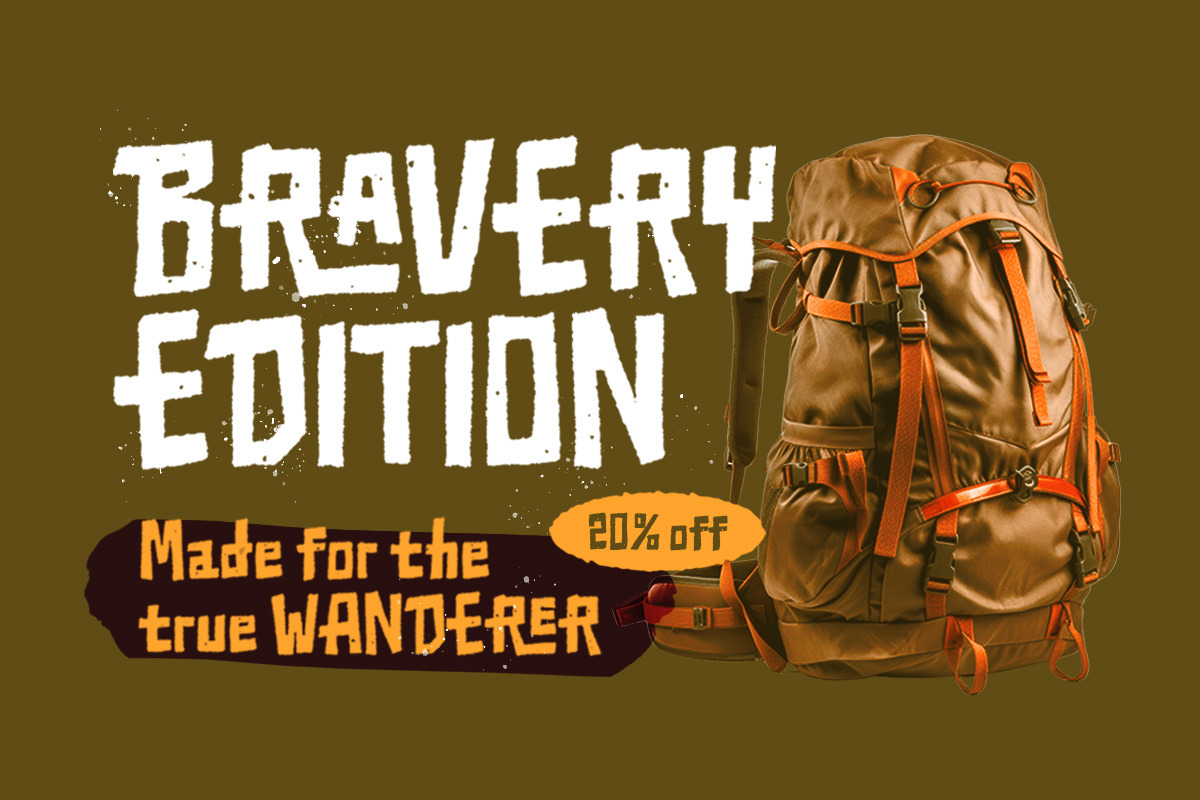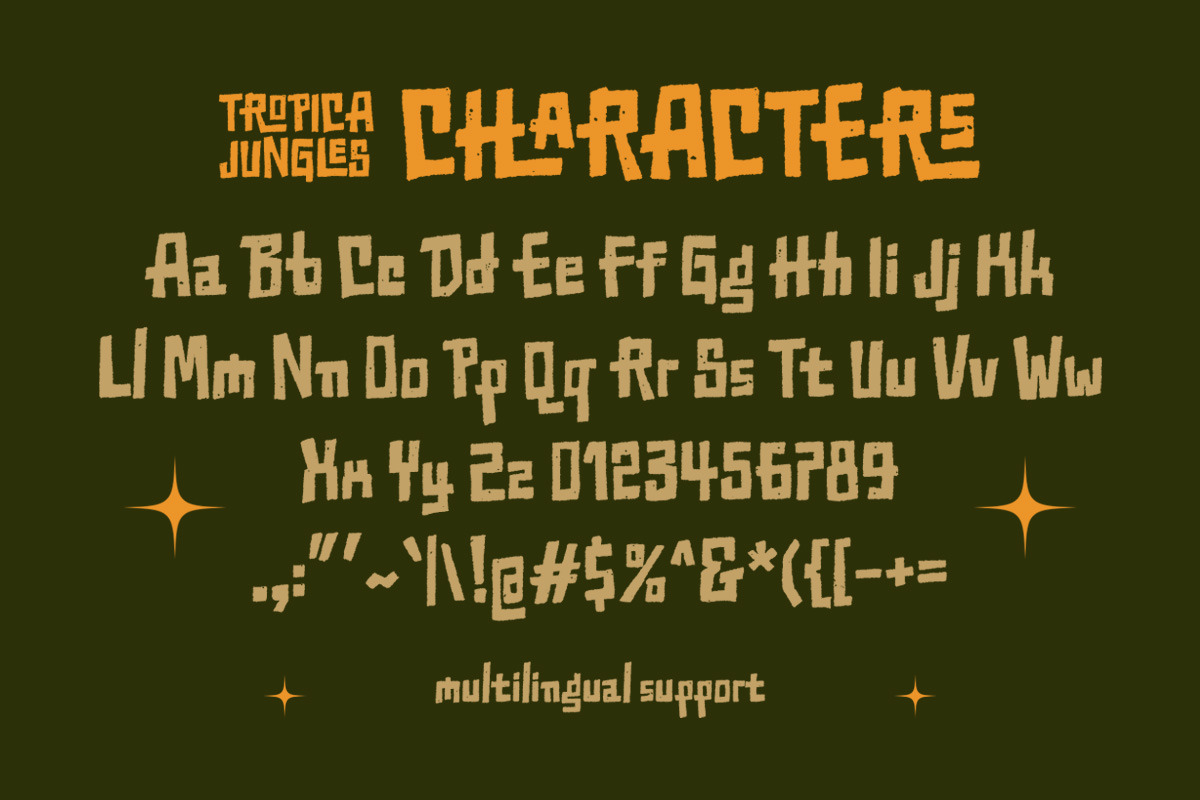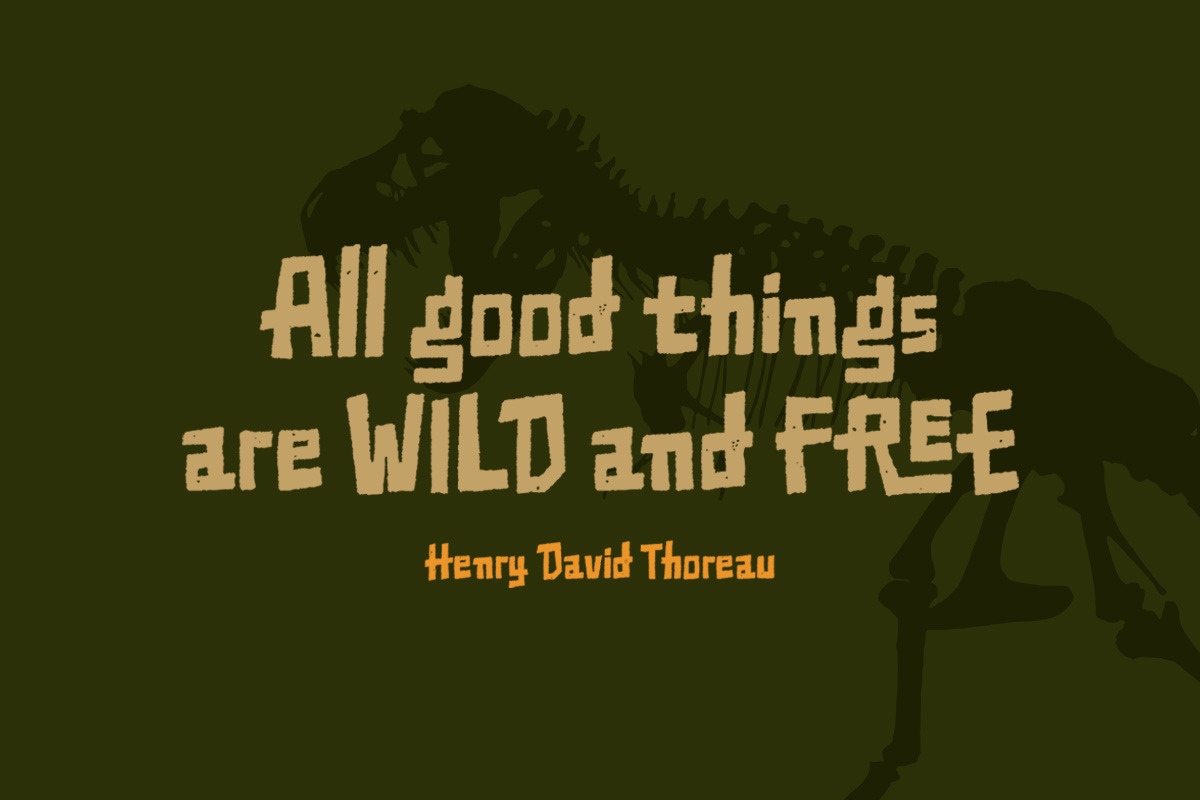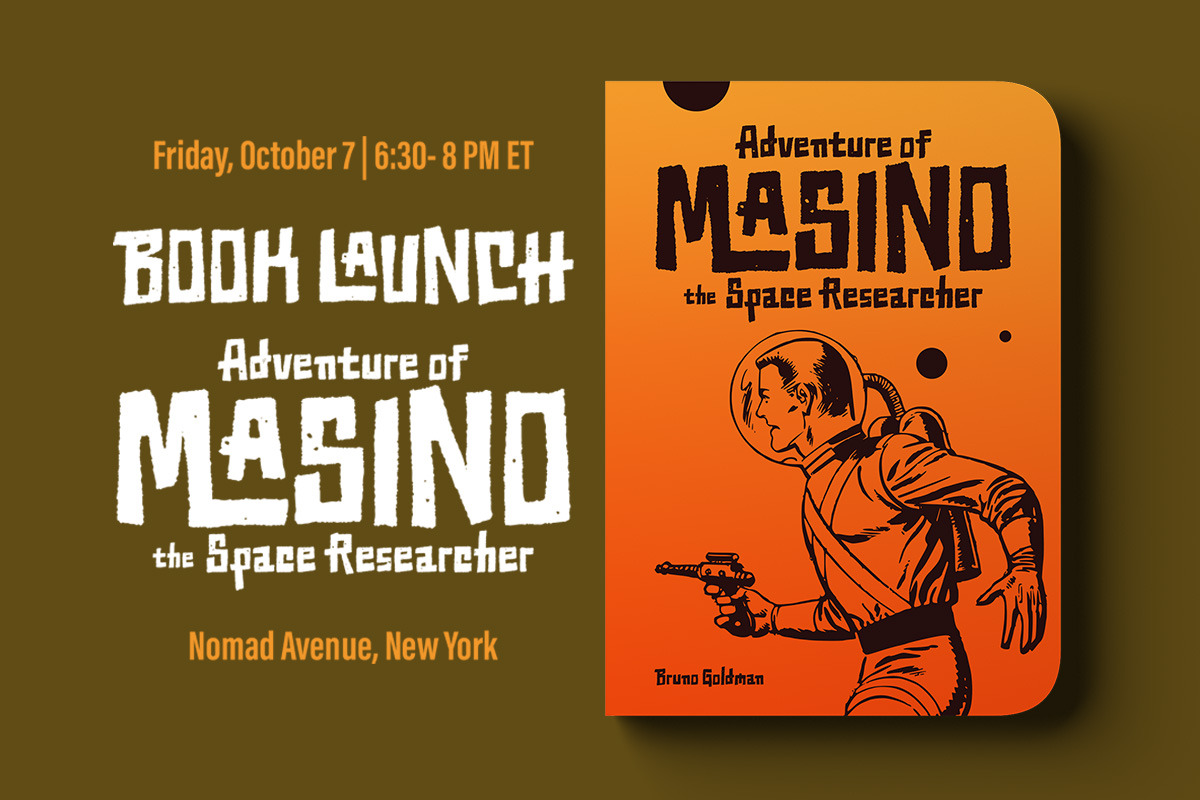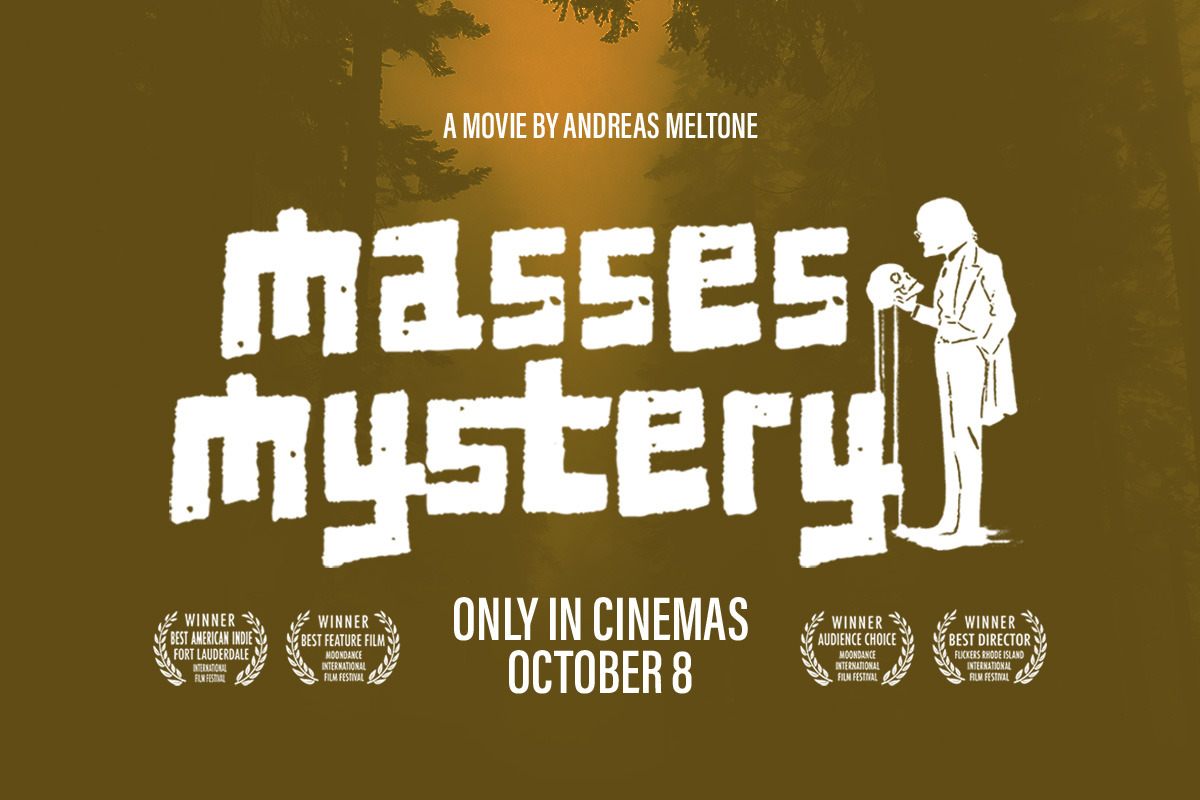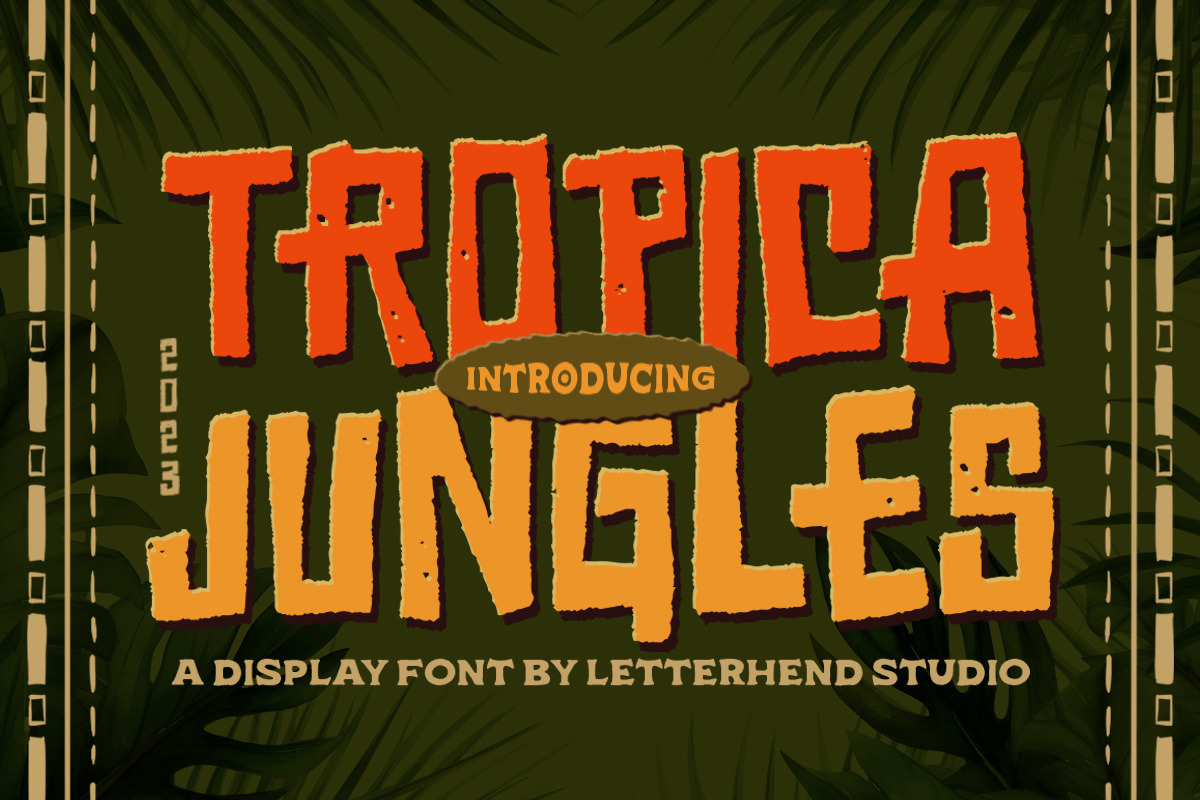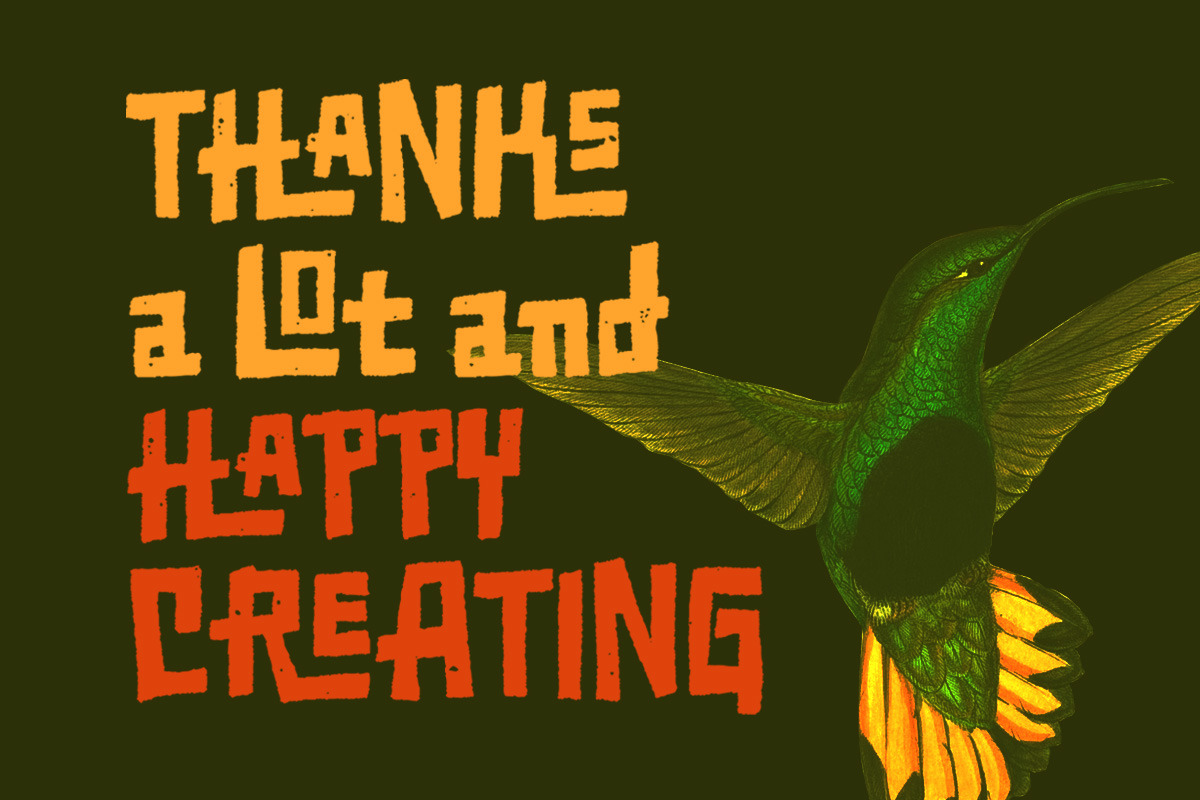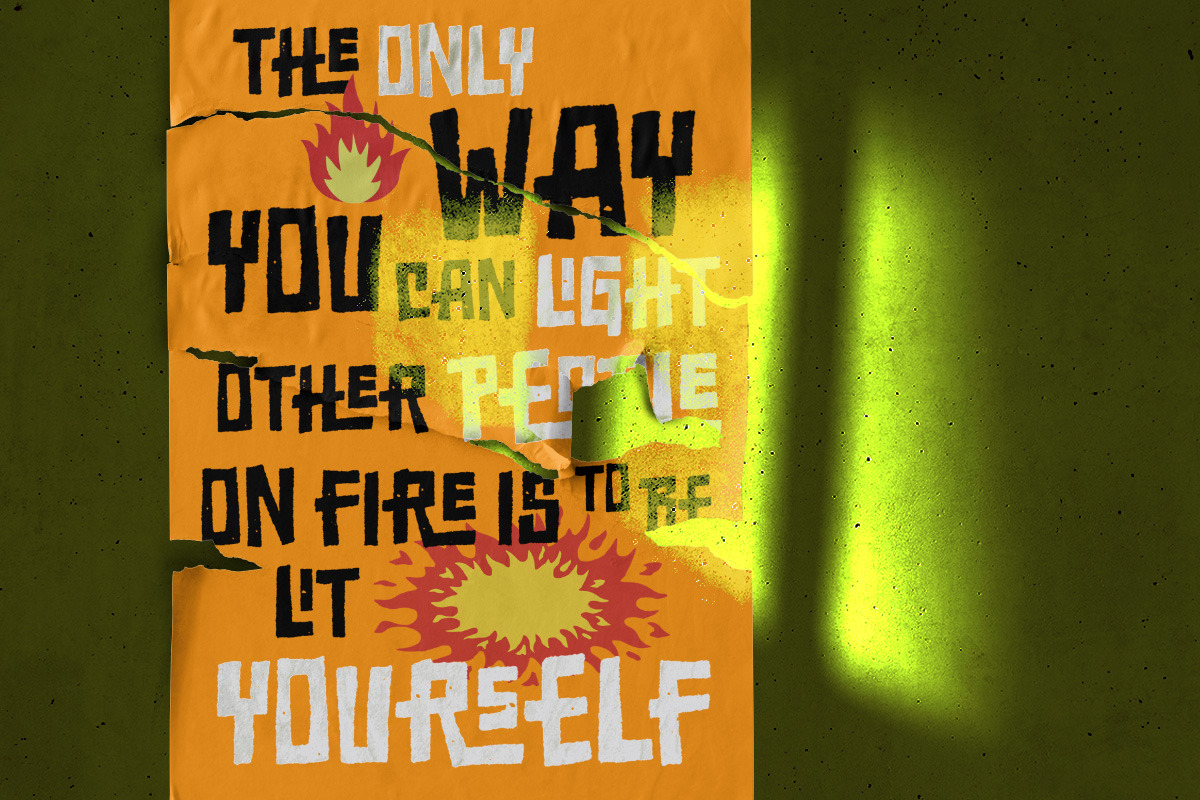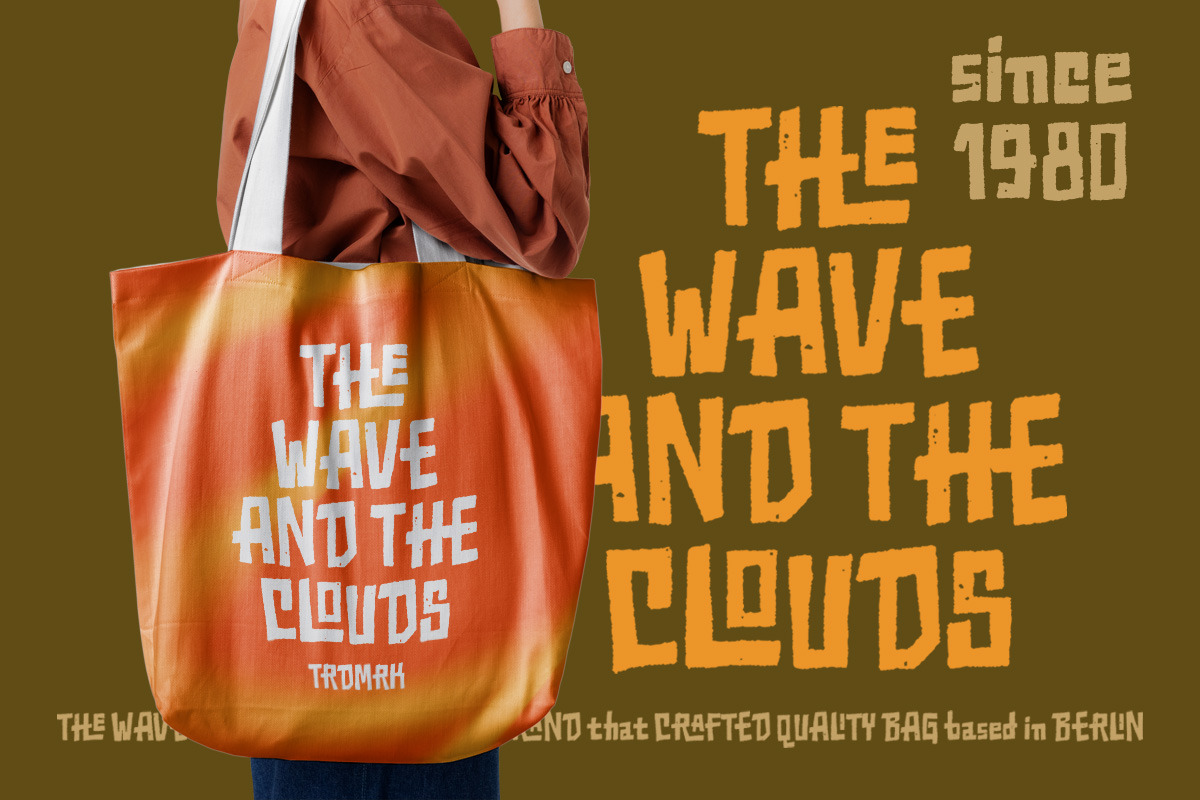
Tropica Jungles - Display Font
Tropica Jungles is a textured display font with cartoon vibes. This font perfectly made to be applied especially in logo, and the other various formal forms such as invitations, labels, logos, magazines, books, greeting / wedding cards, packaging, fashion, make up, stationery, novels, labels or any type of advertising purpose.